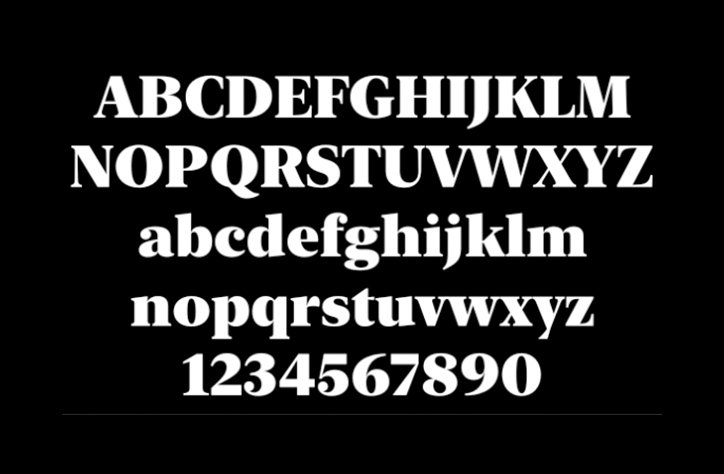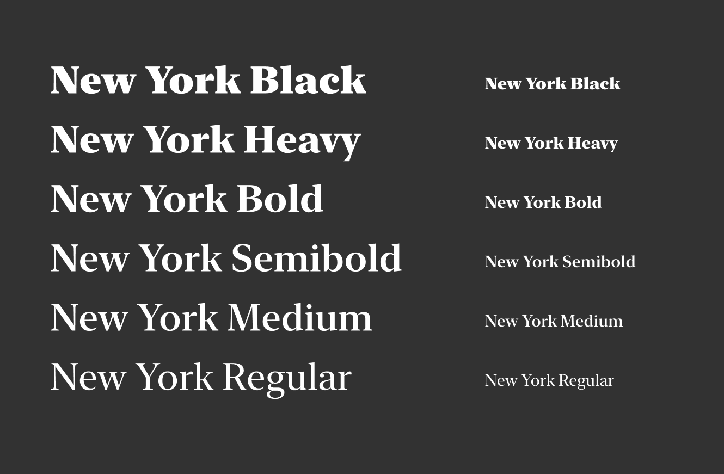
Apple's new typeface is available for use right now
As you’d expect, there’s been a whole heap of hardware and software announcements that have got Apple-fiends across the globe hot under the collar, but here at It’s Nice That we’ve had our attention captured by something that’s slightly more under-the-bonnet: a brand new typeface based on a Susan Kare classic.
Named New York, it seems to be a contemporary re-rub of the typeface of the same name that legendary designer Kare debuted on the Macintosh back in 1983. While it has been tucked away in Apple’s Books apps since late last year, this is the first major public airing it has been given.
It heralds an exciting new era for typefaces at Apple, with the just-announced iOS 13 upgrade planning to offer users the ability to deploy custom fonts across all the apps that keep them tip-tapping away at their devices from breakfast to bedtime and back again.
The developers say “this all-new, Apple-designed serif typeface is based on essential aspects of historical type styles,” noting that it is designed to function either on its or own or alongside San Francisco, the family of fonts which have dominated Apple devices since being launched in 2014.